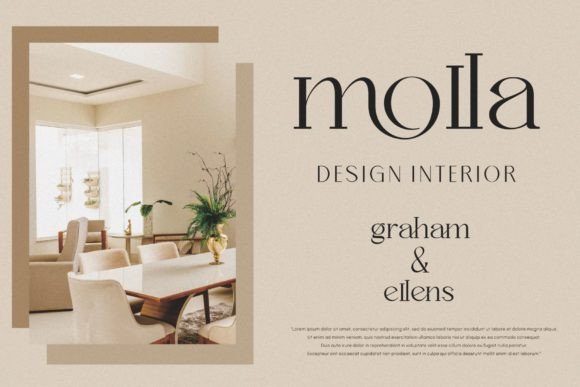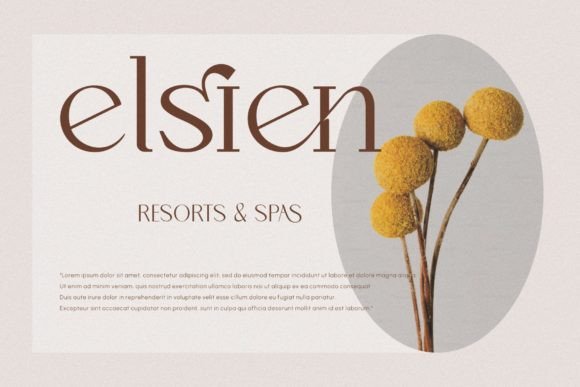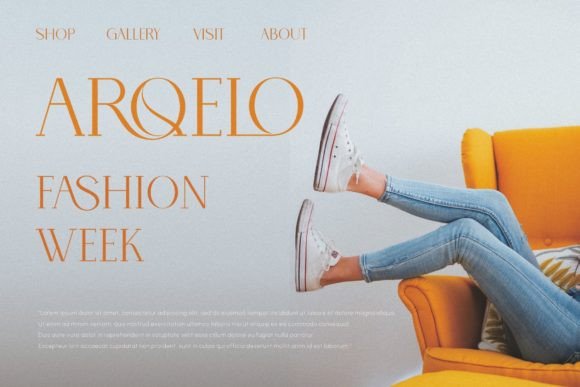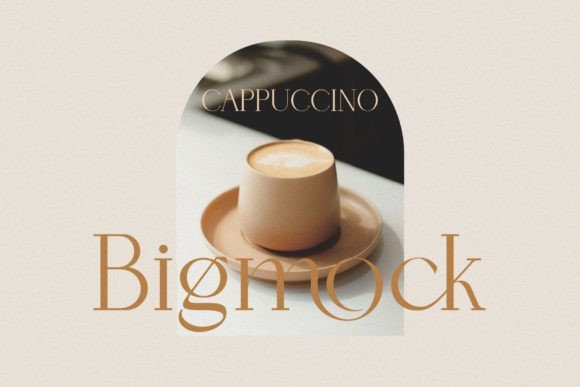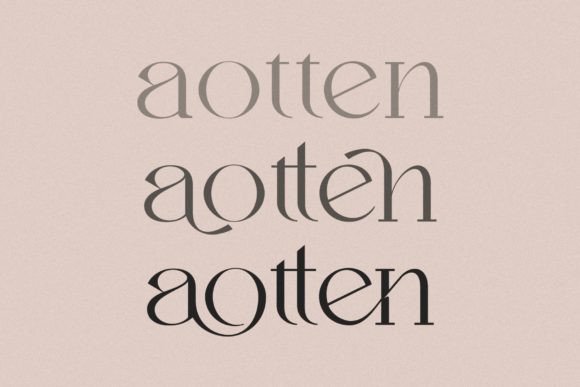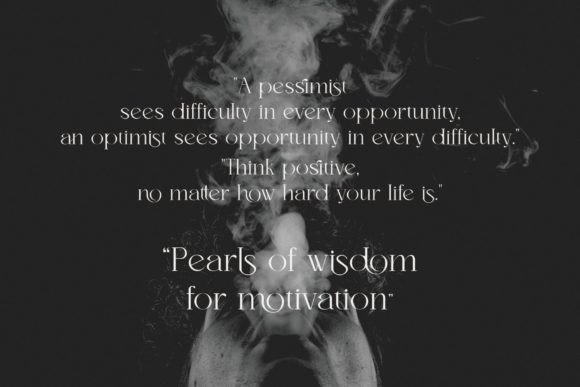
The Perfect Blend of Style and Function: Aotten Font
Have you ever found yourself stuck in the midst of a design project, struggling to find the perfect font to convey your message? You know, that moment when everything else falls into place, but that one crucial element – the font – just won’t cooperate? That’s where the Aotten Font comes in, a modern and elegant serif font designed to make your design dreams a reality.
This versatile font is perfect for designers looking to add a touch of sophistication to their work. With its numerous ligatures and binders, Aotten Font offers endless possibilities for creative expression. Whether you’re working on branding, logos, invitations, or mastheads, this font is sure to elevate your design to the next level.
What sets Aotten Font apart is its ease of use and adaptability, making it a valuable asset for designers of all levels. Its elegant and modern design ensures that your work will stand out in a crowded market, while its numerous features provide endless opportunities for creative experimentation.
- Character Set: The font includes a wide range of characters, including Latin, Cyrillic, and Greek alphabets, as well as punctuation marks and symbols.
- Unique Characteristics: Aotten Font features a unique, hand-drawn design with subtle irregularities, giving it a distinctive and artistic feel.
- Font Style: The font comes in three styles: Regular, Italic, and Bold, offering flexibility for designers to create visually appealing typography.
Aotten Font Review
I recently had the chance to work with the Aotten Font, and I must say, it’s been a mixed bag for me. Let’s dive into the good and the not-so-good.
- The Aotten Font has a unique, modern aesthetic that’s perfect for contemporary designs.
- The font is highly versatile and can be used for a wide range of applications, from headlines to body text.
- The font’s high x-height makes it easy to read, even at smaller font sizes.
- The font is available in a range of weights, from light to bold, giving designers a lot of flexibility.
- The font’s irregular letterforms can be a bit jarring for some users, especially in longer blocks of text.
- The font’s high contrast can make it difficult to read in certain lighting conditions.
- The font is not suitable for use in small print, as the letterforms can become difficult to distinguish.
Overall, I think the Aotten Font is a solid choice for designers who want a modern, unique look. While it has some limitations, it’s definitely worth considering for the right project. Just be sure to test it thoroughly and use it in contexts where it will shine.
Aotten Font is ideal for:
1. Branding and logo design.
2. Digital signage and advertising.
3. Web design and development.
4. Print materials such as business cards and brochures.
Alternatives to Aotten Font for Designers
Montserrat is a modern sans-serif font designed for digital use. It is clean, minimalistic, and highly legible. Use it for body text, headings, and titles in digital products and websites.
Compared to Aotten Font, Montserrat is more geometric and has a more straightforward design. Aotten Font, on the other hand, has a more unique, rounded feel.
Open Sans is a popular sans-serif font designed for digital use. It is highly legible and suitable for body text, headings, and titles in various applications, including websites, mobile apps, and documents.
Open Sans is more straightforward and less decorative than Aotten Font, making it a good choice for applications where a clean, modern look is desired.